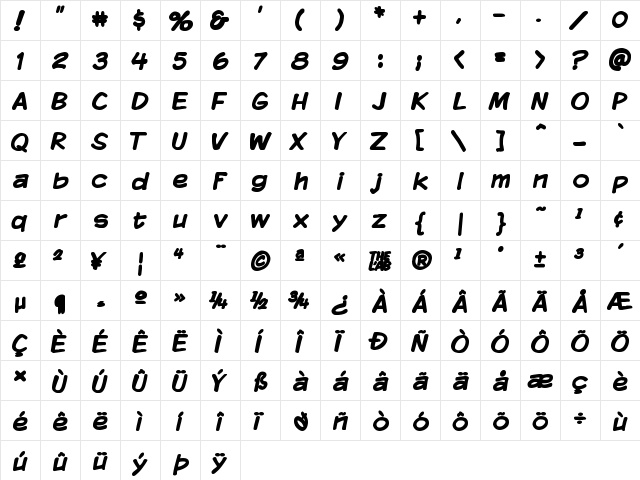
Komika Display Bold
Design Context for Komika Display Typeface
Komika Display brings ornamental detail and strong personality to headlines and identities, where visual impact matters more than quiet functionality. The heavy weight commands attention and anchors typographic hierarchies.
Font Pairing: Pair with a clean neutral sans-serif for body copy to let Komika Display's character lead without overwhelming the composition.
Pro Tip: Use Komika Display exclusively at display sizes — it was designed to be seen, not read at length. Let a neutral companion handle body copy.